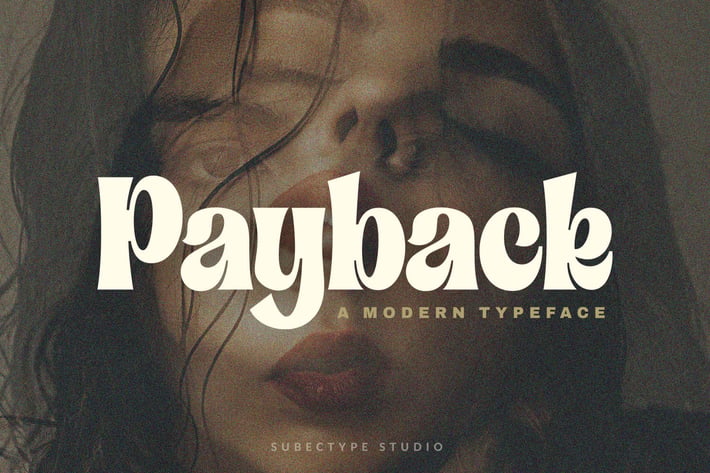
Payback - Modern Serif Font
Introducing "Payback" Modern Serif font, that has own unique style & casual look. This font is perfect for an elegant & luxury logo,
branding, title project, fashion brand, magazine, clothes, lettering, quotes, and so much more.